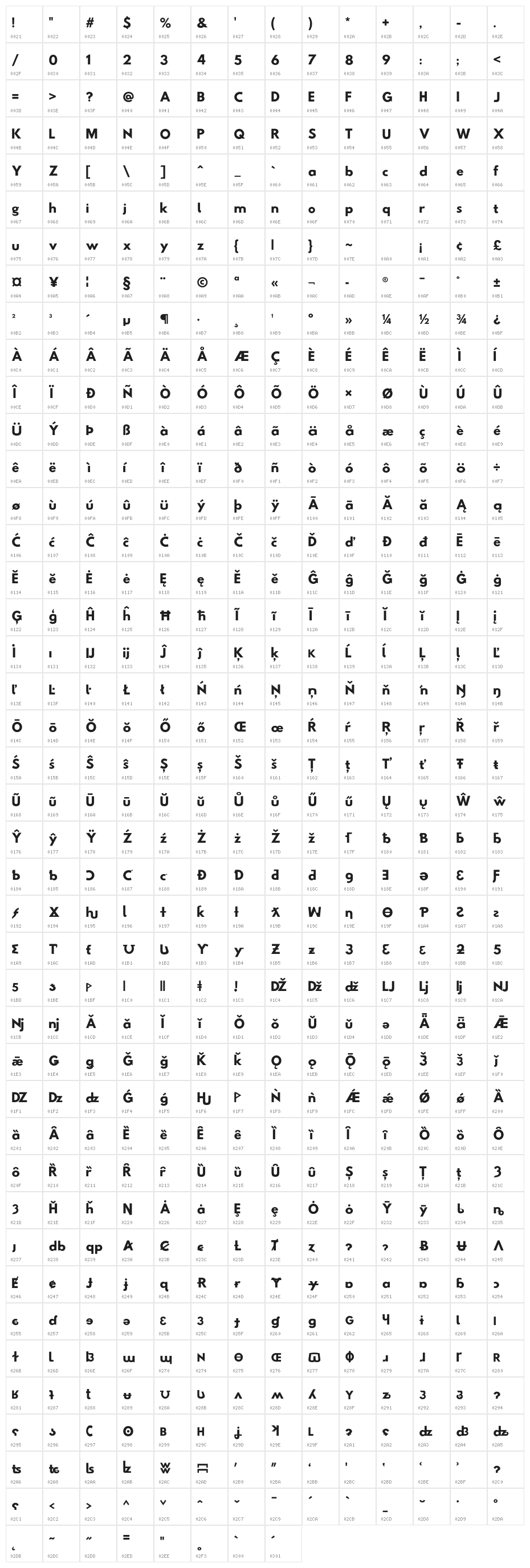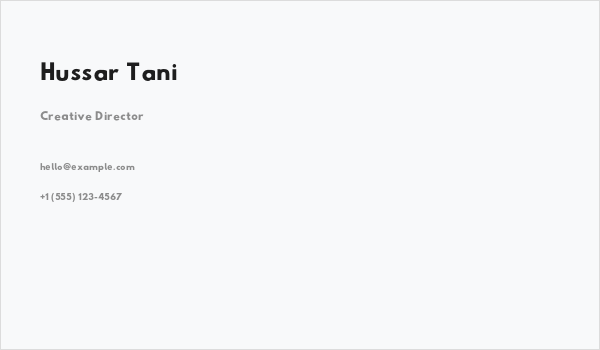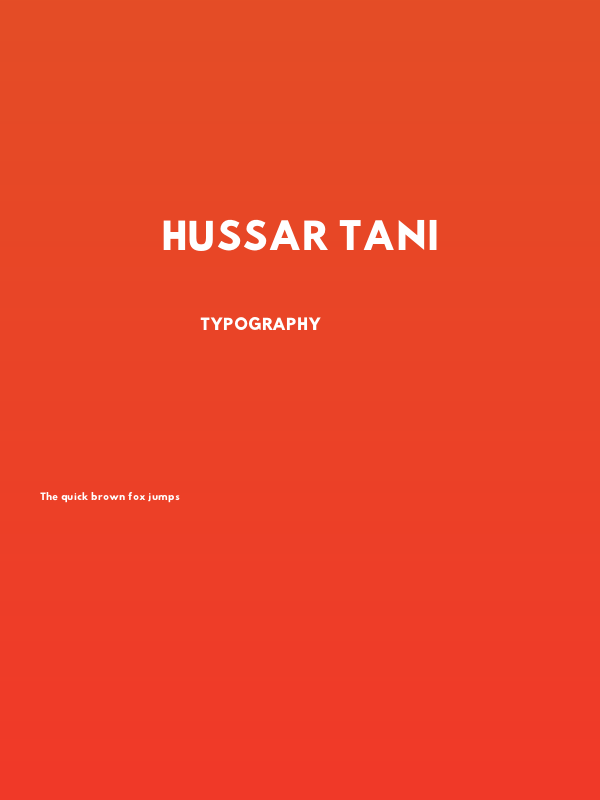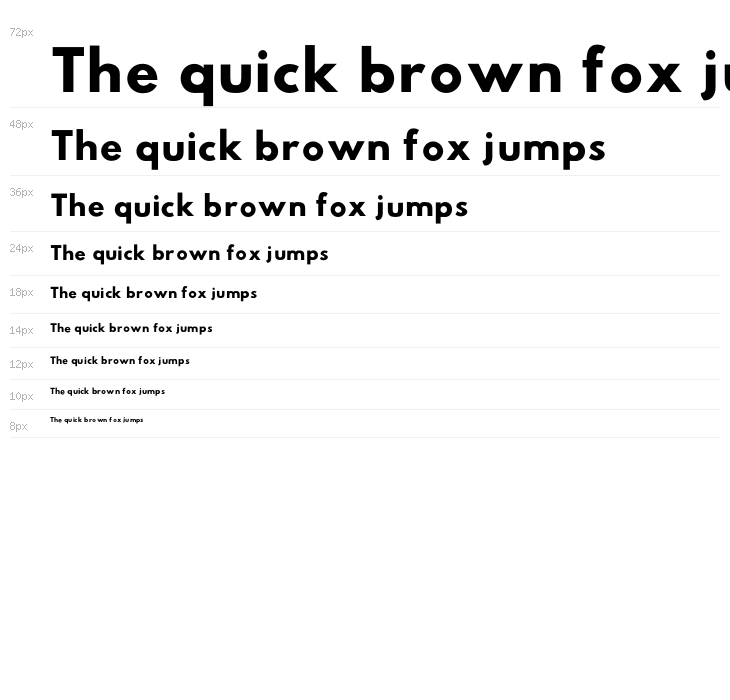
Hussar Tani Font
Hussar Tani Description
This font features a bold and confident design, characterized by its strong geometric shapes and clean lines. The uppercase letters are particularly striking, with a consistent stroke width that conveys a sense of stability and modernity. The lowercase letters maintain the same boldness, ensuring readability and a cohesive look across different text sizes. The numerals are clear and straightforward, making them suitable for various applications. Special characters are well-integrated, offering versatility for different design needs. Overall, this font exudes a modern and professional aesthetic, making it ideal for impactful headlines and branding.